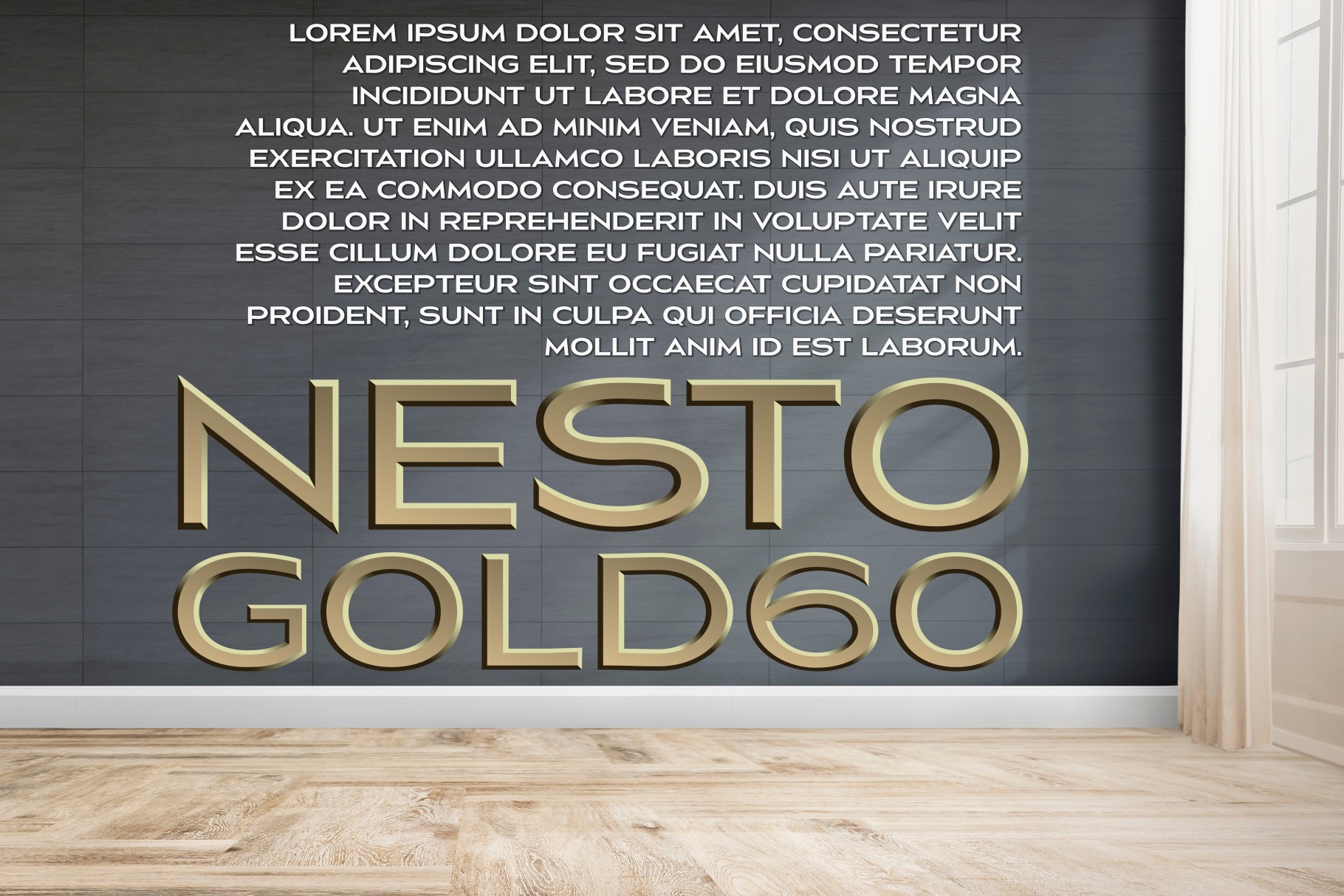
Nesto Beryl Sans Serif Font is modern bold sans serif display font. Add it confidently to your favorite creations and let yourself be amazed by the outcome generated. Practical and timeless, this display font does an excellent job on laying headlines and bold messages.